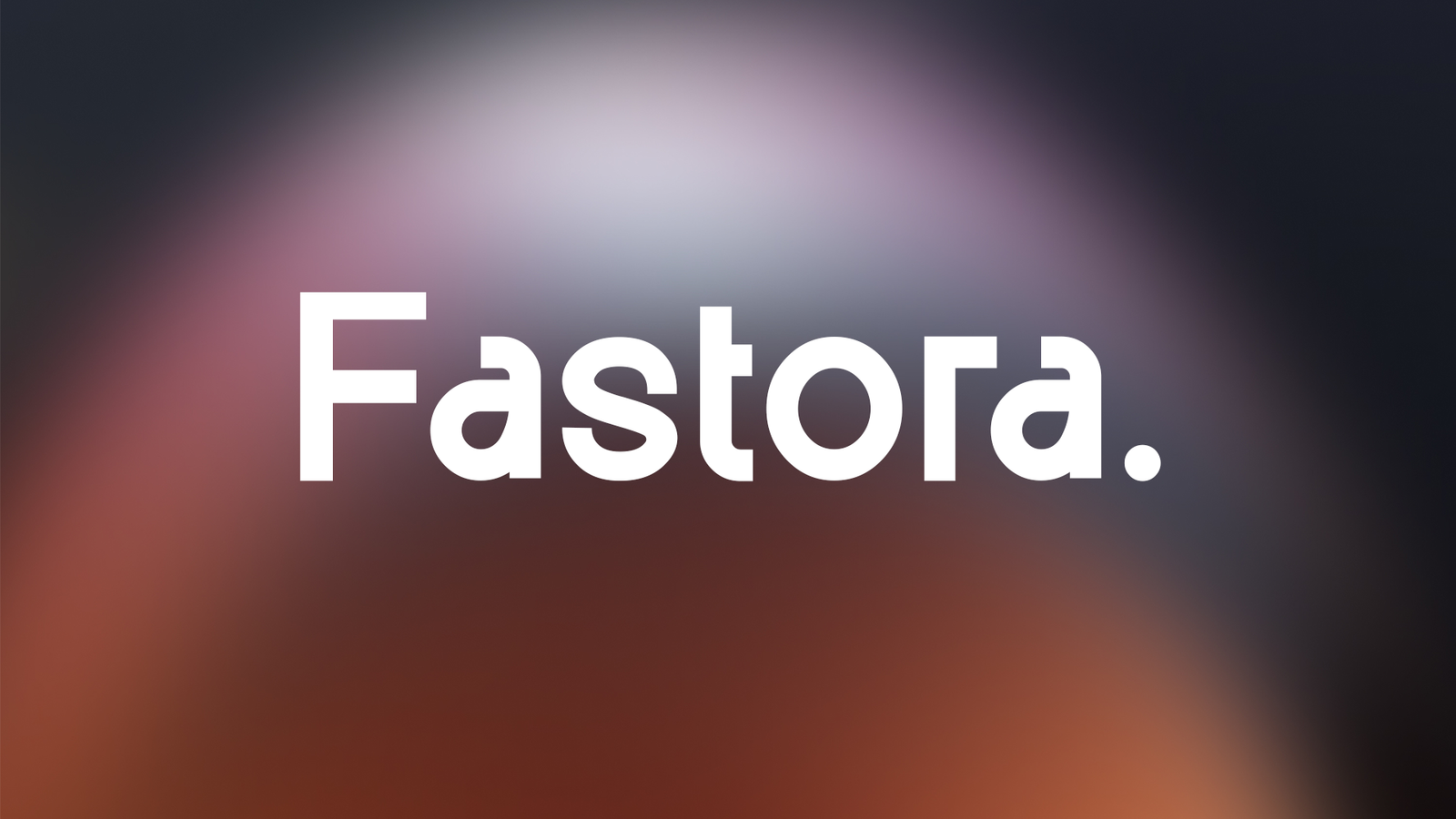
Display fonts are bold, eye-catching typefaces designed to make a strong visual impact. Ideal for headlines, posters, branding, and advertising, these fonts add personality and style to any project. Whether you need a modern, futuristic, vintage, or artistic look, our collection of free display fonts offers a variety of unique styles to enhance your designs. From bold sans-serif and elegant serifs to decorative and script typefaces, each font is crafted to stand out. Perfect for logos, packaging, social media graphics, and website headers, these high-quality fonts ensure your message is both readable and visually striking. Available in TTF and OTF formats, they are compatible with various design tools, making them easy to use in any creative project. Explore our collection today and find the perfect display font to elevate your designs with bold and beautiful typography.